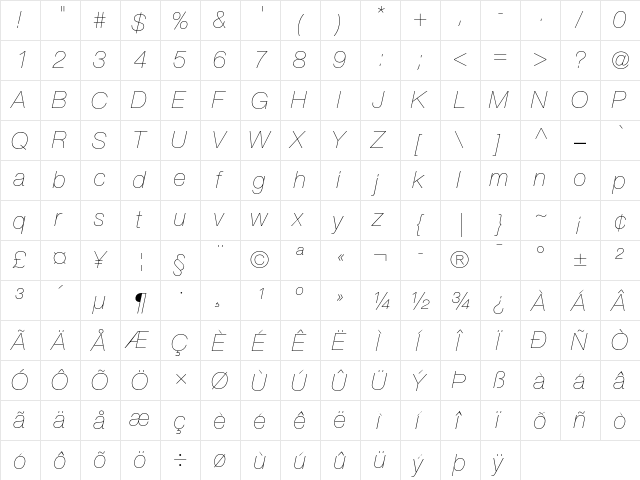
Helvetica Neue 26 Ultra Light Italic Font Preview
Design Context for Helvetica Neue Typeface
Helvetica Neue is a composed and adaptable typeface that performs quietly and consistently across a wide range of design contexts. The dynamic lean of this cut emphasises speed and emphasis in any layout. Its slender proportions lend an understated elegance to any composition.
Pro Tip: Try Helvetica Neue for annotation and caption copy alongside an upright companion — the contrast in angle creates a dynamic but ordered typographic system.